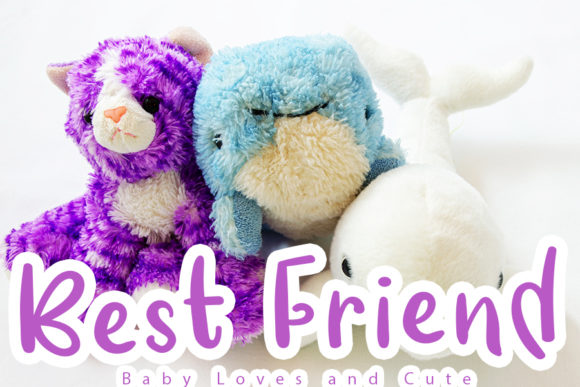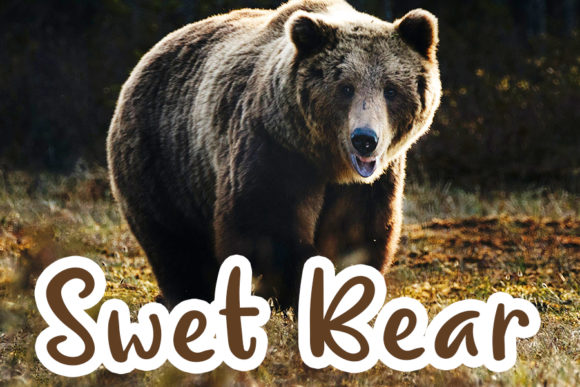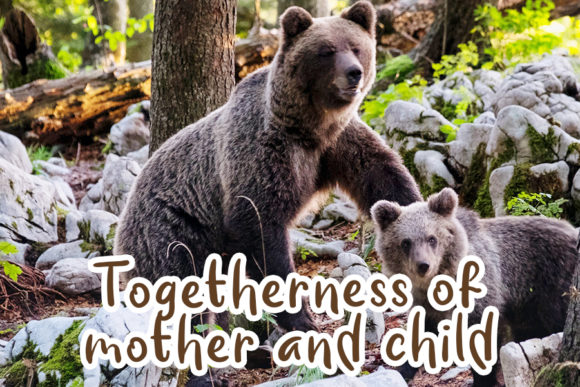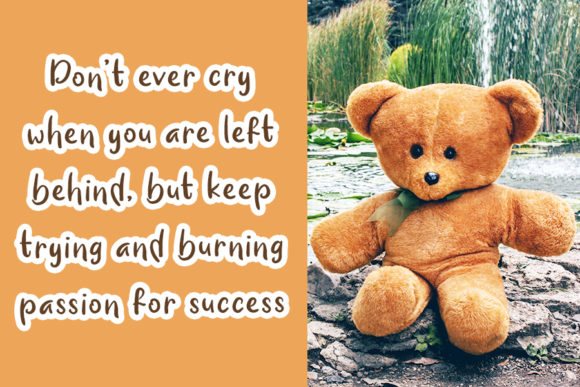
Introducing Busy Bear Font: The Ultimate Bold and Sloppy Handwritten Font
Are you tired of using the same old fonts for your designs? Look no further! Busy Bear Font is here to shake things up with its bold and sloppy handwritten style. This versatile font is perfect for designers and crafters who want to add a personal touch to their work. In this article, we’ll dive into the world of Busy Bear Font and explore its endless possibilities.
What is Busy Bear Font?
Busy Bear Font is a unique and eye-catching handwritten font that’s perfect for making a statement. Its bold and sloppy style gives it a carefree and playful vibe that’s sure to capture attention. Whether you’re designing a logo, creating a wedding invitation, or making a poster, Busy Bear Font is the perfect choice.
Uses of Busy Bear Font
The possibilities are endless with Busy Bear Font! Here are some of the many ways you can use this amazing font:
- Logos: Create a bold and memorable logo for your business or brand with Busy Bear Font.
- Wedding Invitations: Add a personal touch to your wedding invitations with this beautiful handwritten font.
- Headings: Use Busy Bear Font to create eye-catching headings for your blog posts, articles, or social media graphics.
- T-Shirts: Design custom t-shirts with Busy Bear Font for a unique and stylish look.
- Letterhead: Elevate your business correspondence with Busy Bear Font on your letterhead.
- Signage: Create eye-catching signs for your business or event with this bold font.
- Labels: Use Busy Bear Font to create custom labels for your products or gifts.
- News: Add a touch of personality to your news articles or blog posts with Busy Bear Font.
- Posters: Create stunning posters for your business, event, or promotion with Busy Bear Font.
- Badges: Design custom badges with Busy Bear Font for conferences, events, or employee recognition.
Why Choose Busy Bear Font?
So why choose Busy Bear Font over other fonts? Here are just a few reasons:
- Unique Style: Busy Bear Font has a one-of-a-kind style that’s sure to stand out from the crowd.
- Versatility: This font can be used for a wide range of projects, from logos to posters.
- Easy to Read: Despite its sloppy style, Busy Bear Font is surprisingly easy to read, making it perfect for body text or headings.
- Customizable: You can customize Busy Bear Font to fit your brand’s style and personality.
Tips for Using Busy Bear Font
Here are some tips for getting the most out of Busy Bear Font:
- Pair with Other Fonts: Experiment with pairing Busy Bear Font with other fonts to create a unique and interesting look.
- Use for Headings: Use Busy Bear Font for headings and titles to add a pop of personality to your design.
- Keep it Simple: Don’t be afraid to keep things simple and use Busy Bear Font on its own for a bold and striking look.